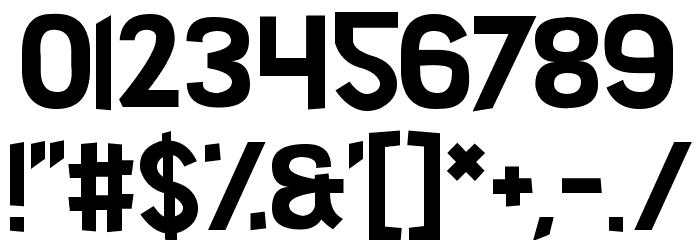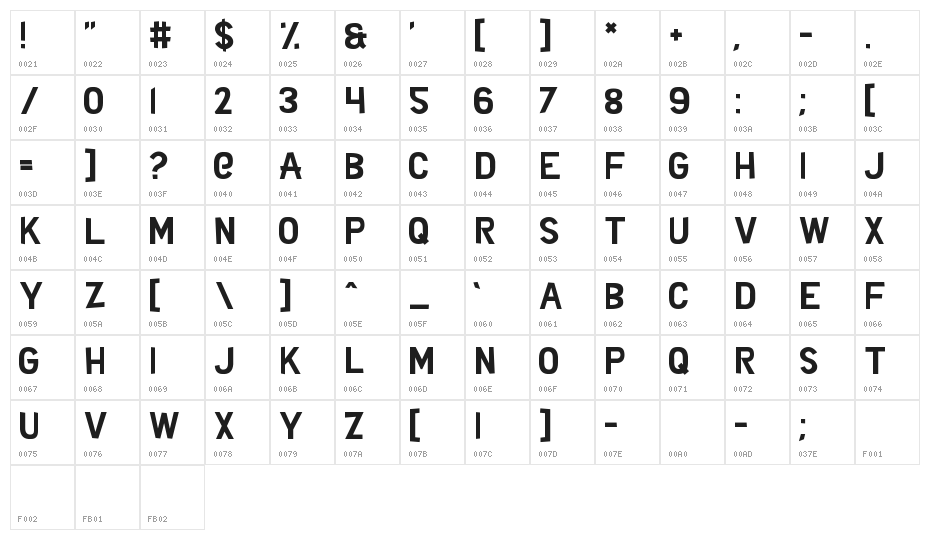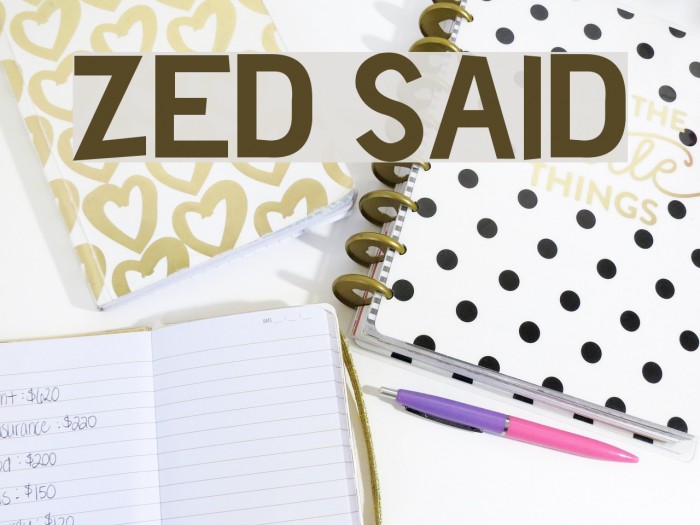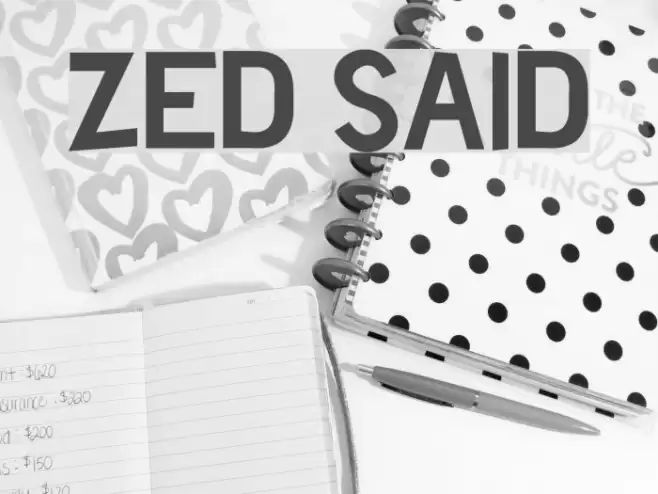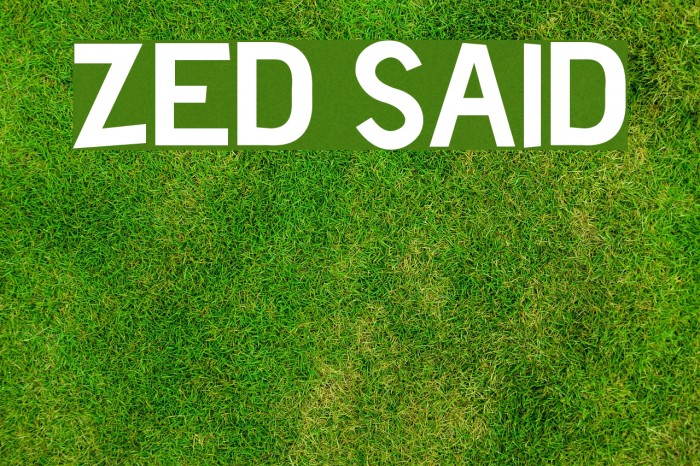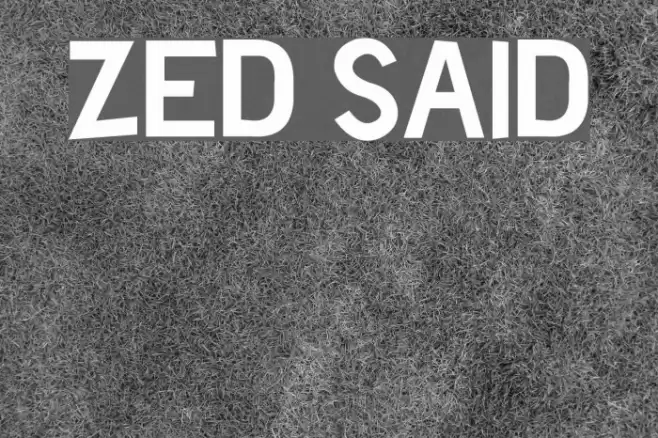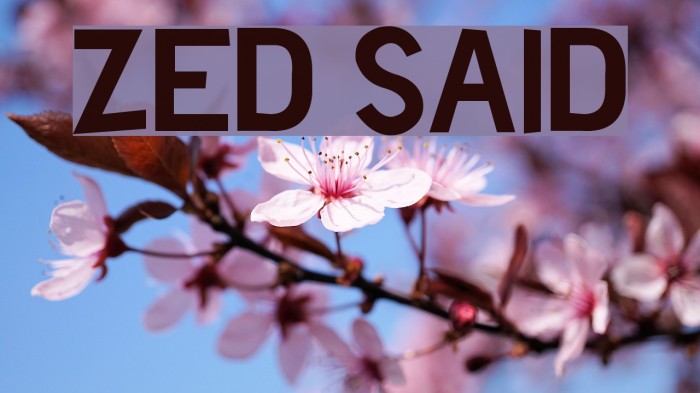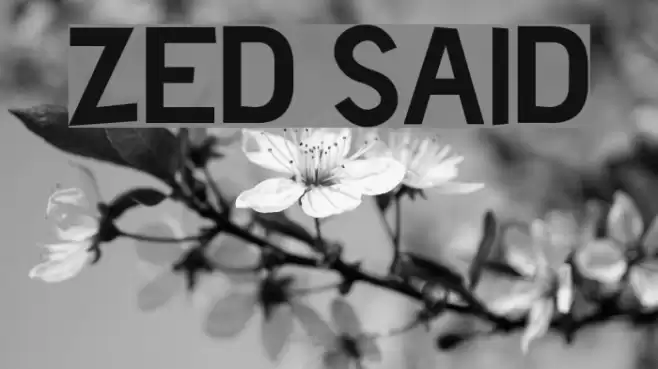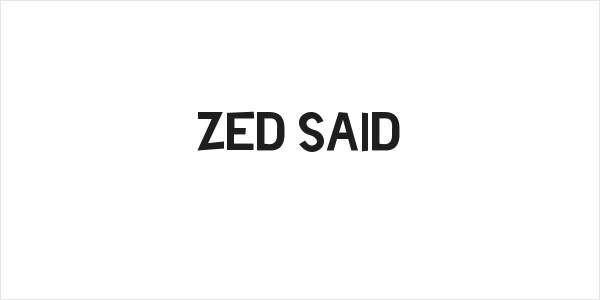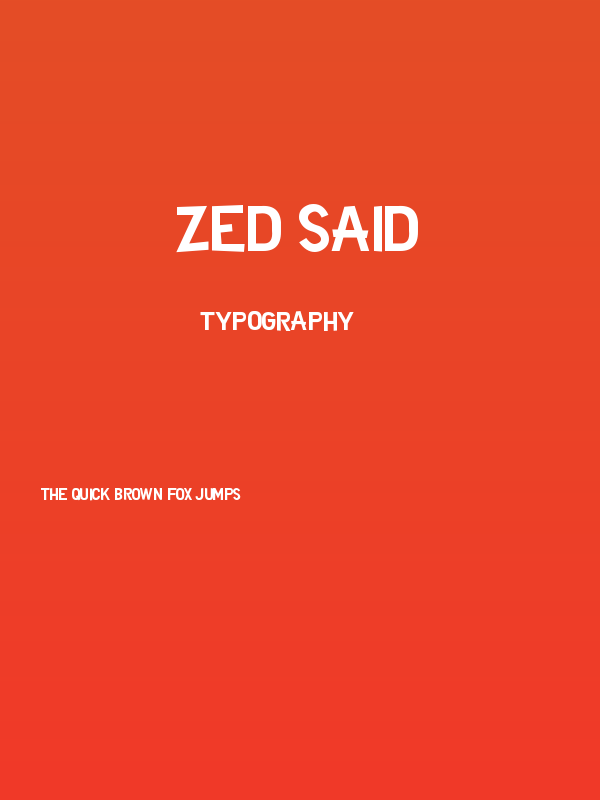
Zed Said Font
Zed Said Description
This font features bold, geometric letterforms with a strong presence. The uppercase and lowercase characters maintain a consistent weight, contributing to a cohesive and impactful appearance. The design is characterized by its clean lines and sharp angles, making it highly legible and suitable for various applications. The numerals and special characters follow the same bold style, ensuring uniformity across all text elements. The font's modern aesthetic is complemented by its slightly condensed width, which allows for efficient use of space without sacrificing readability. Overall, this font is ideal for projects that require a contemporary and assertive look.
| Use Case | Headlines, Logos, Advertising |
| Proposed Projects | Ideal for branding, advertising, headlines, and digital media where a strong visual impact is needed. |